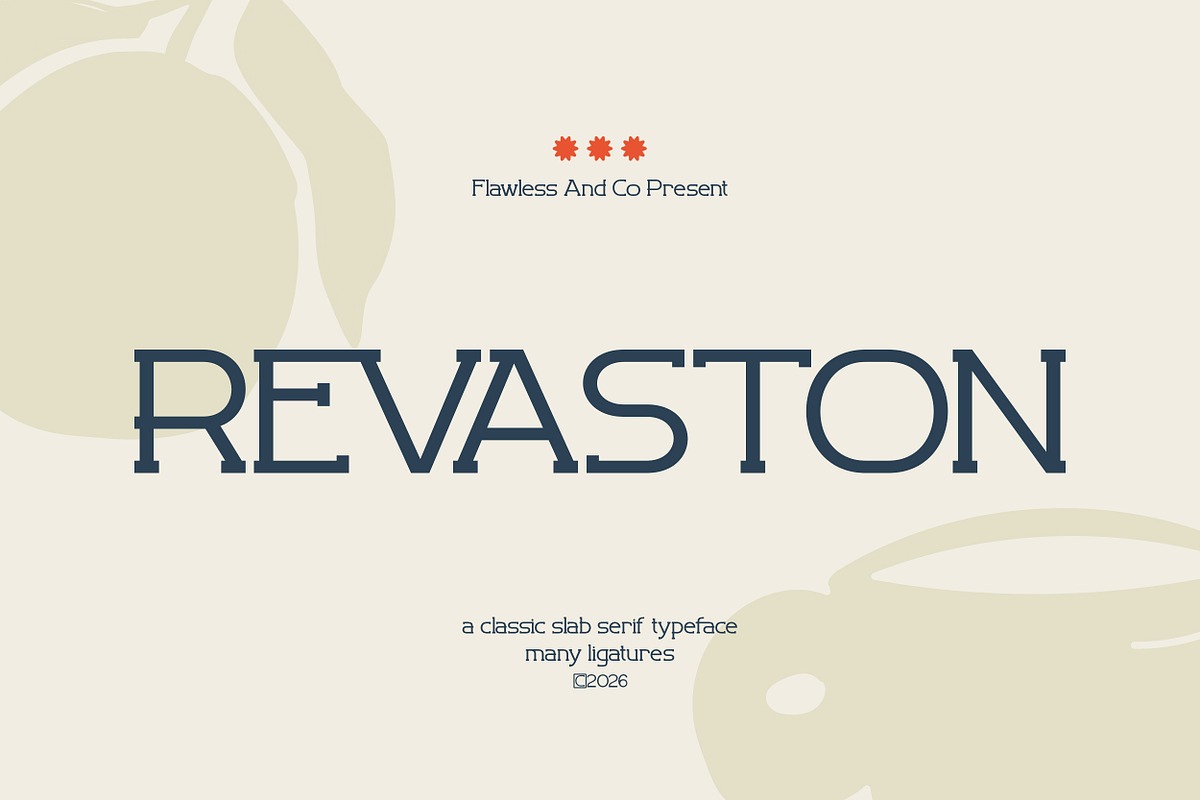
Revaston – Classic Slab Serif Font
Revaston – Classic Slab Serif Font is a professionally designed typeface that delivers clarity, structure, and consistent performance across various design applications. Revaston is a classic slab serif font designed with strong structure and timeless character. Featuring distinctive slab serifs, balanced proportions, strong and clean letterforms, Revaston creates a confident and structured typographic style suitable for many design needs. Inspired by traditional slab serif typography, this font offers a solid and reliable appearance while maintaining clarity and readability. Its well-crafted letterforms provide a professional look that works well across both print and digital designs.